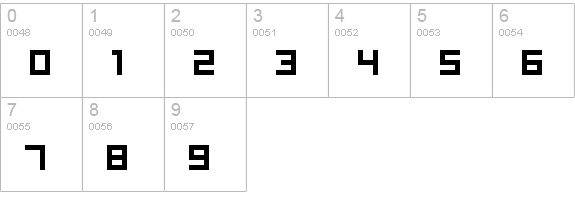
Hooge 05_56 font is a modern and versatile typeface that combines sleek lines with a touch of playfulness. Its clean and legible design makes it perfect for a wide range of projects, from branding to editorial design. The Hooge 05_56 font is free to download at FontsMarket.com, making it accessible to designers and creatives looking for a high-quality font to add to their collection. With its unique style and extensive character set, this font is sure to elevate any design project and help you stand out from the crowd.